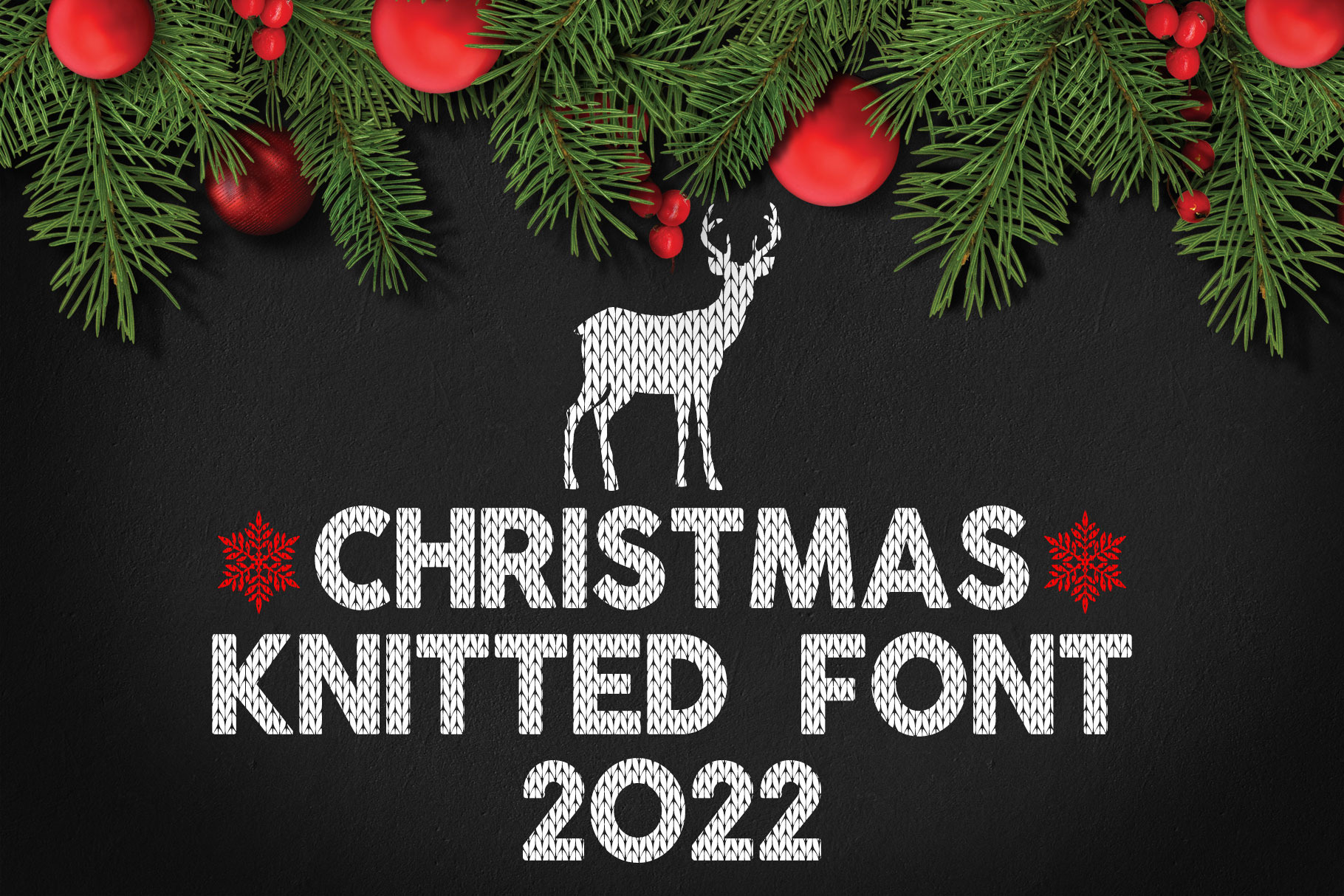
Christmas Knitted Font
Christmas knitted font Modern display font for your project. Christmas knitted font is suitable for logo, branding, greeting card, poster, flyer, any outdoor advertising and any design that you create.